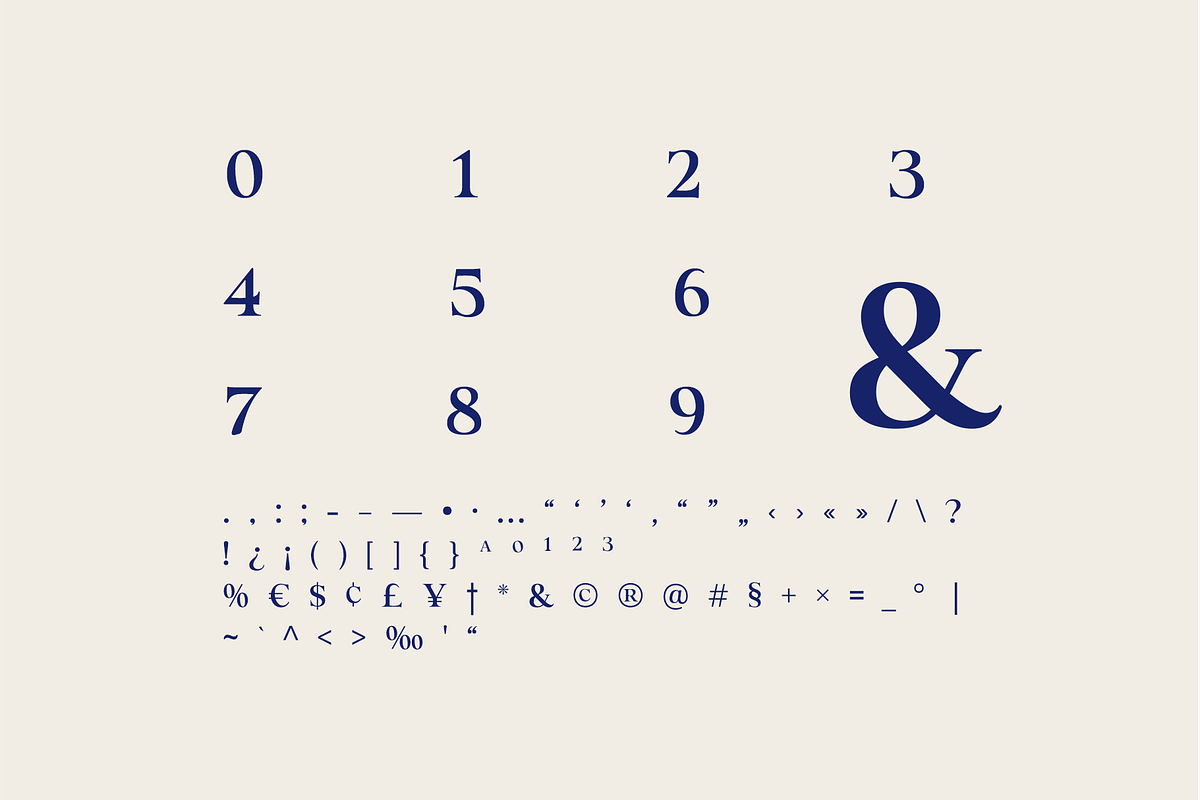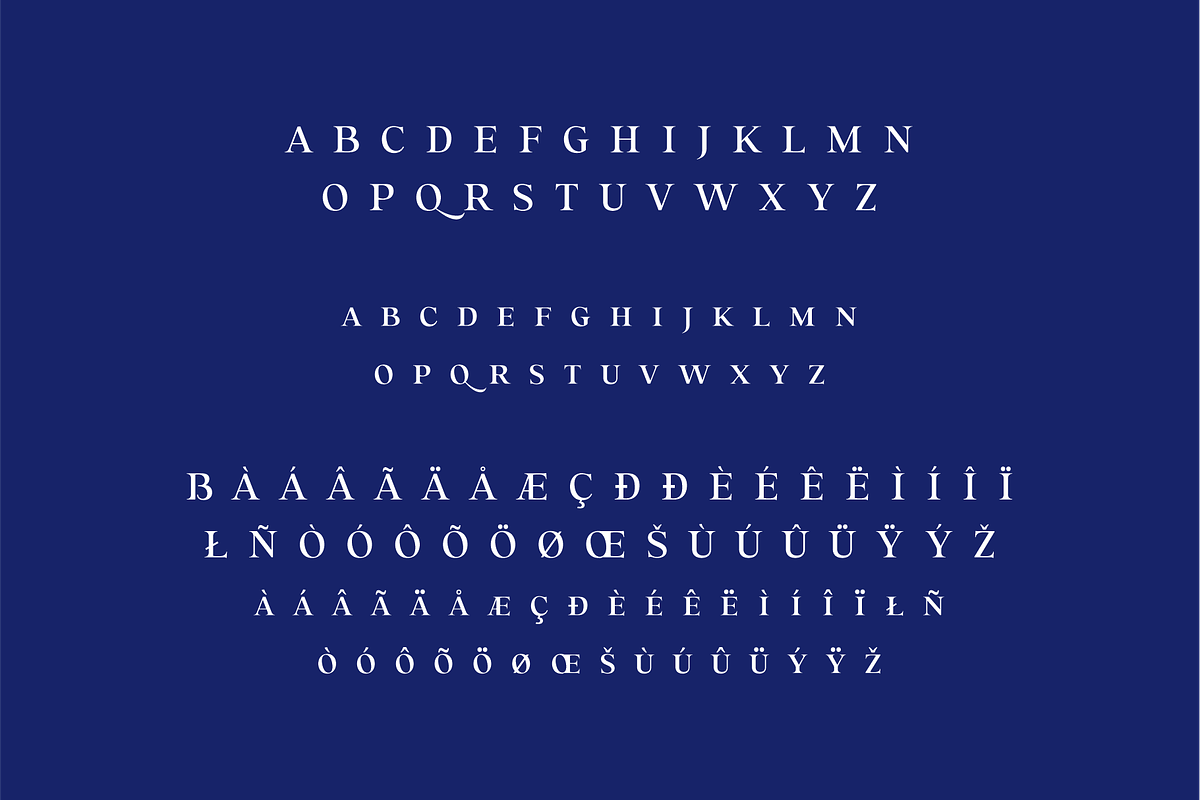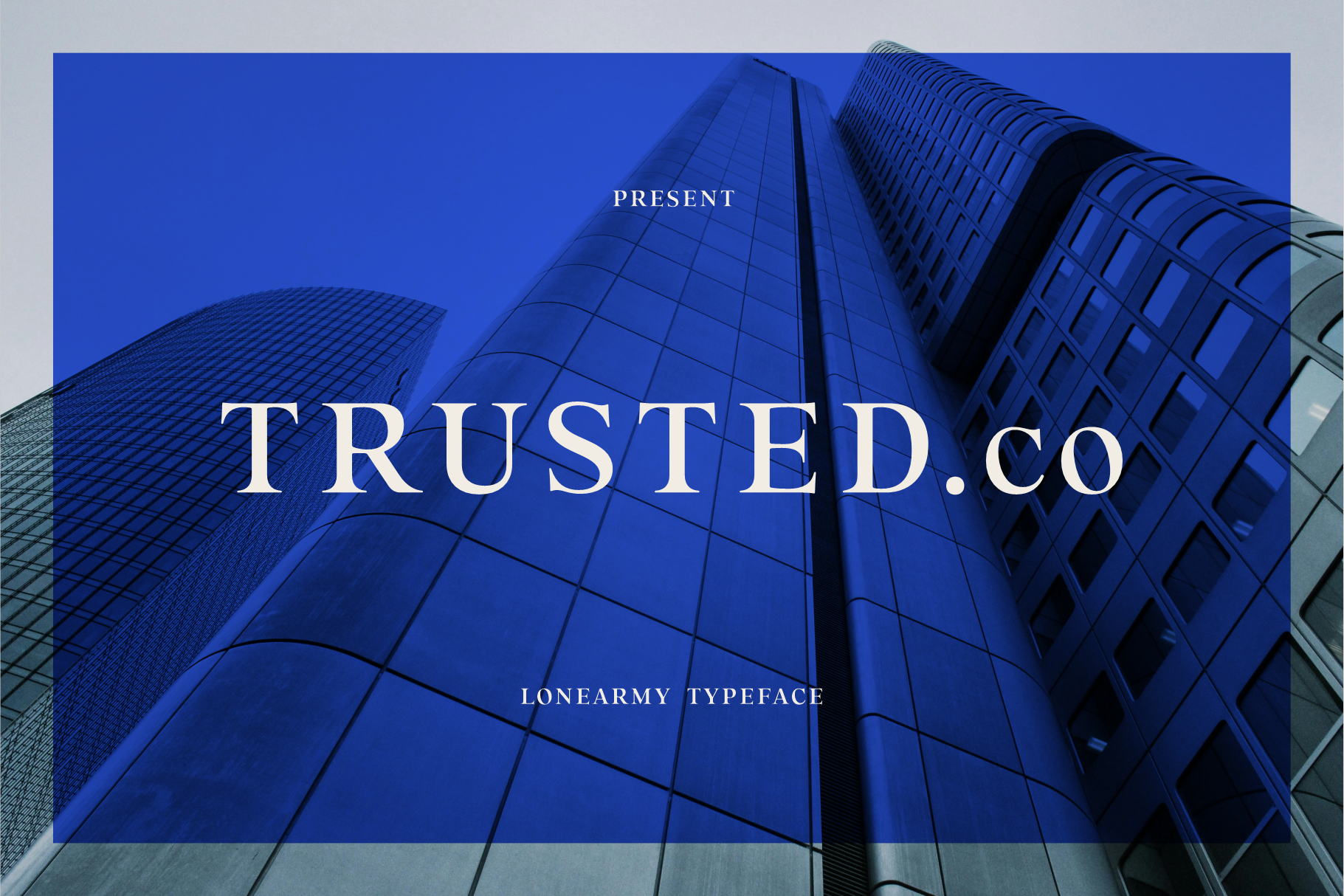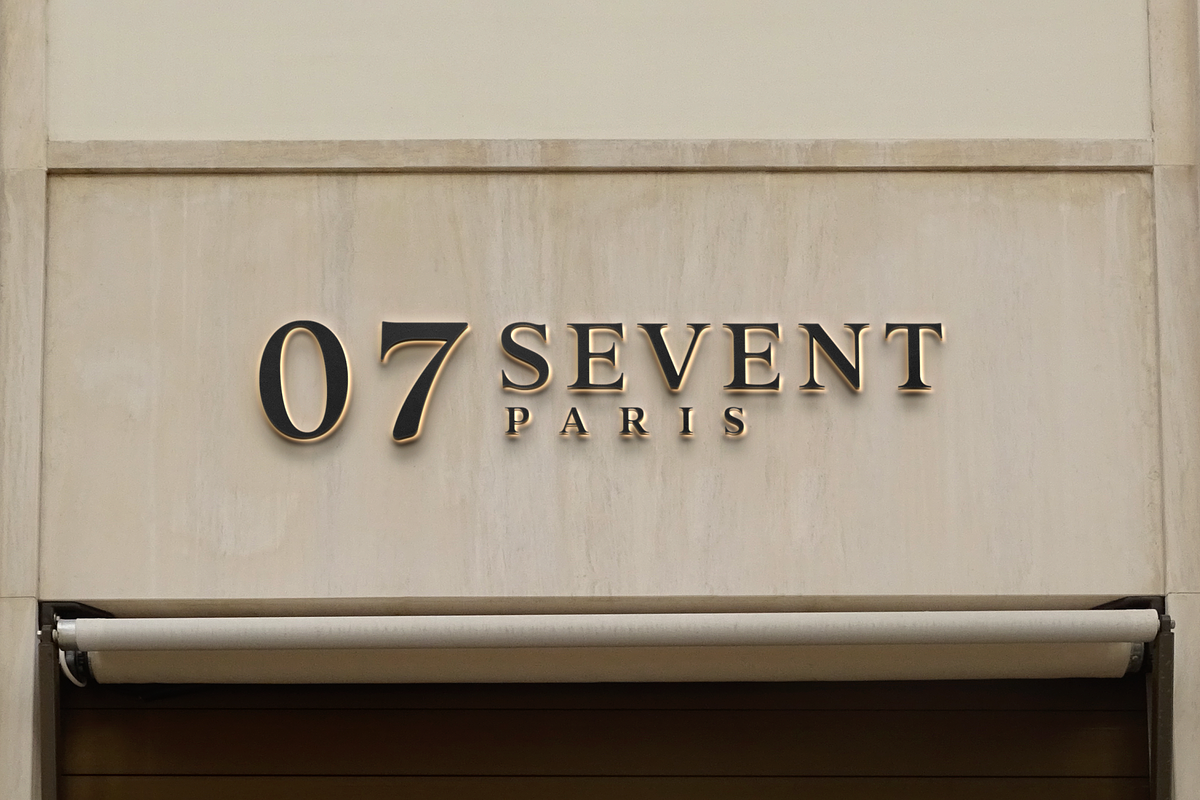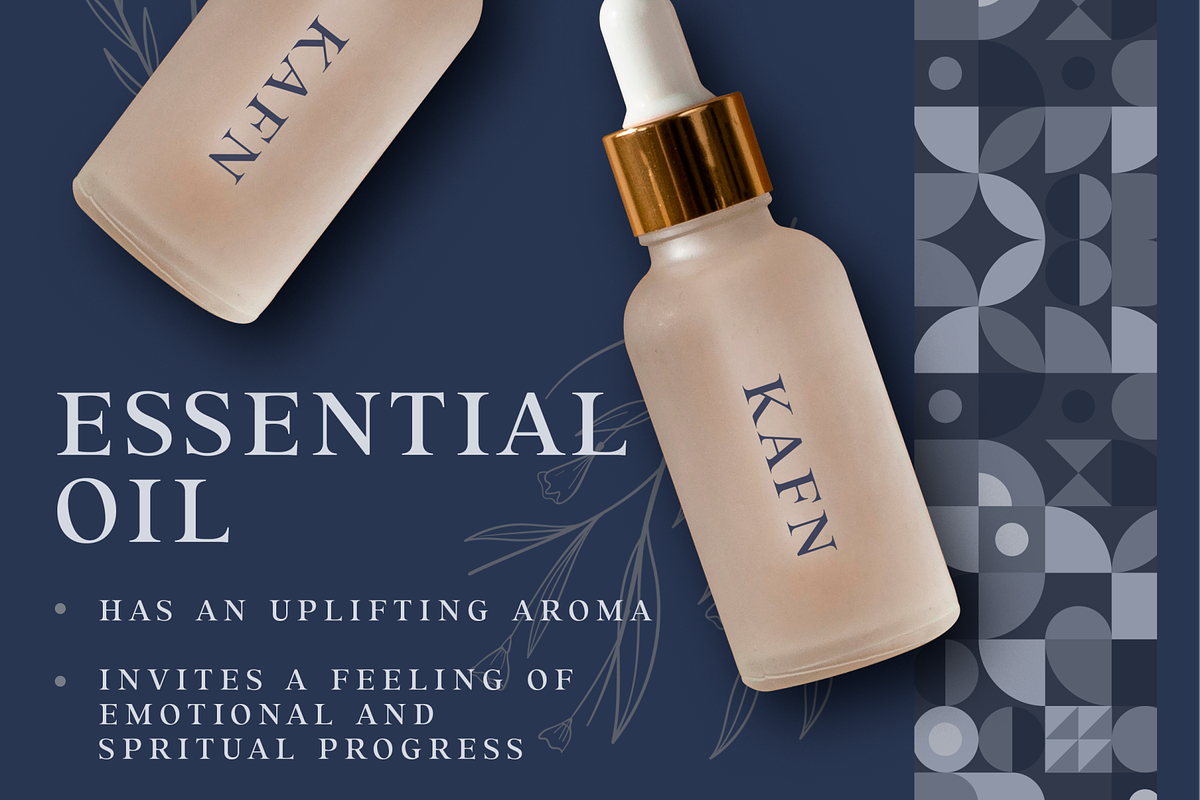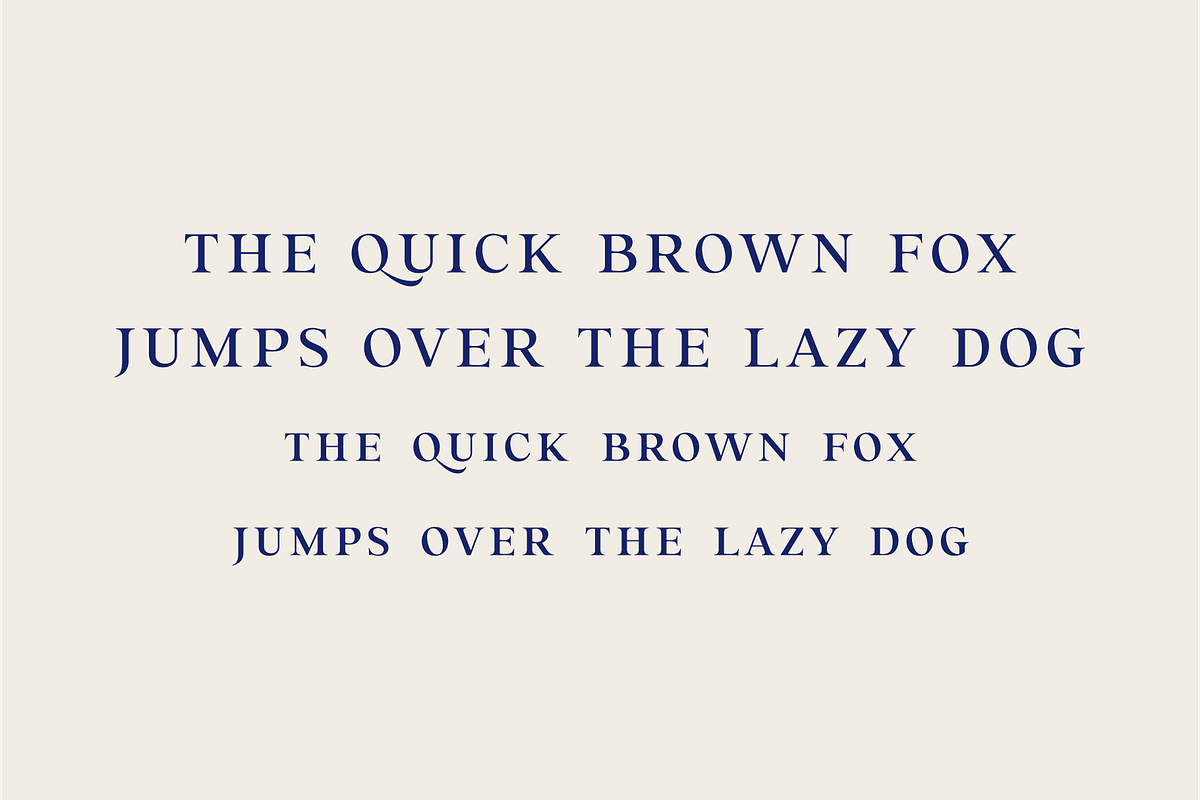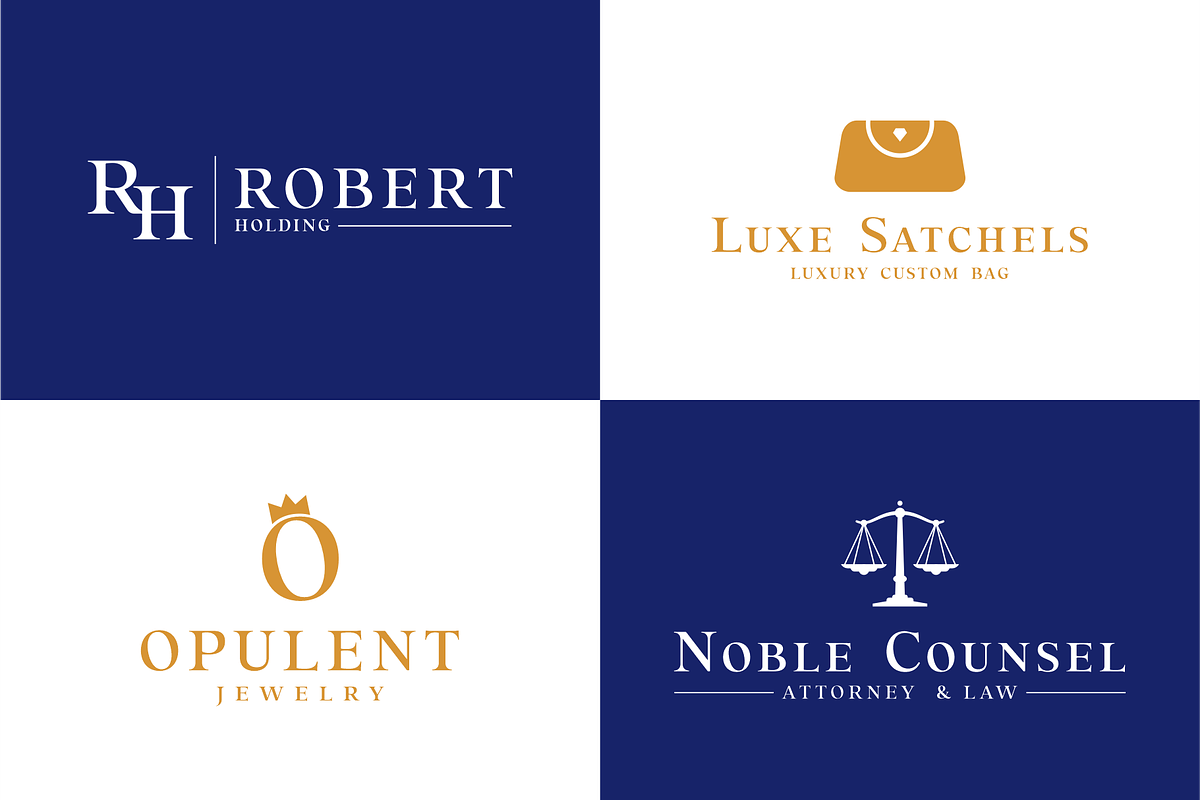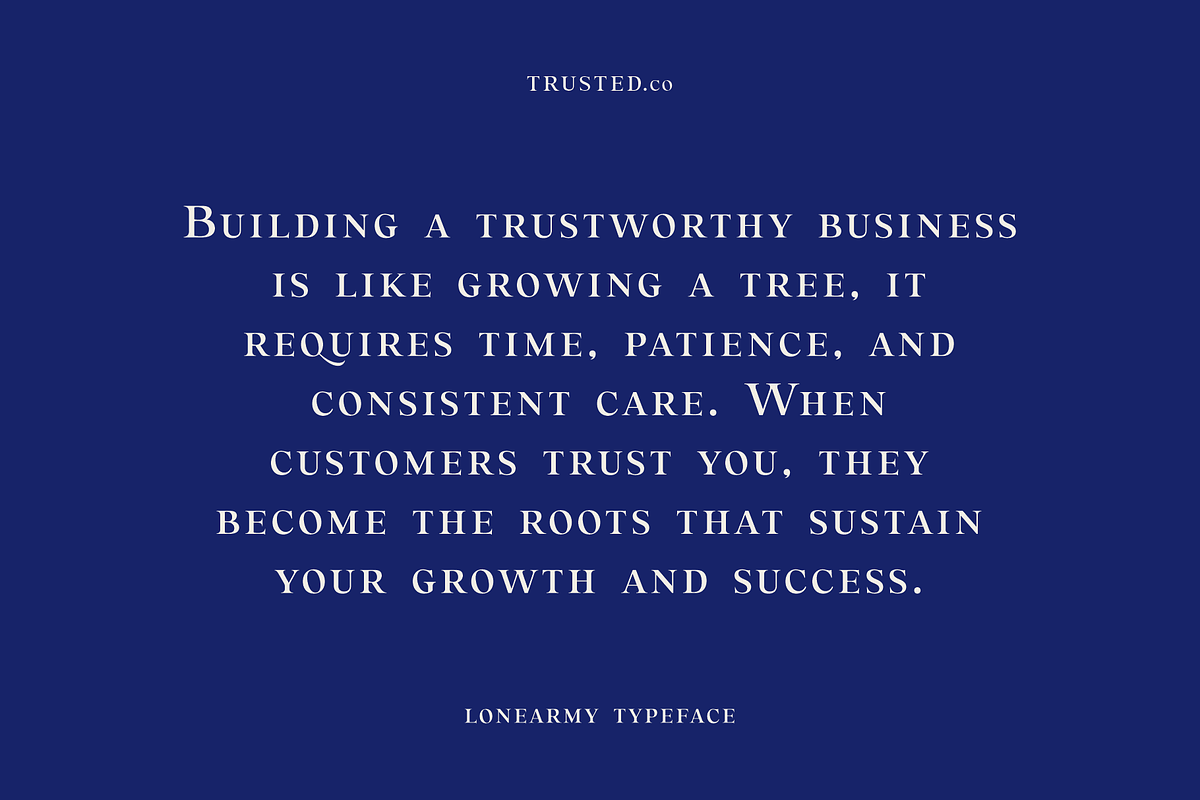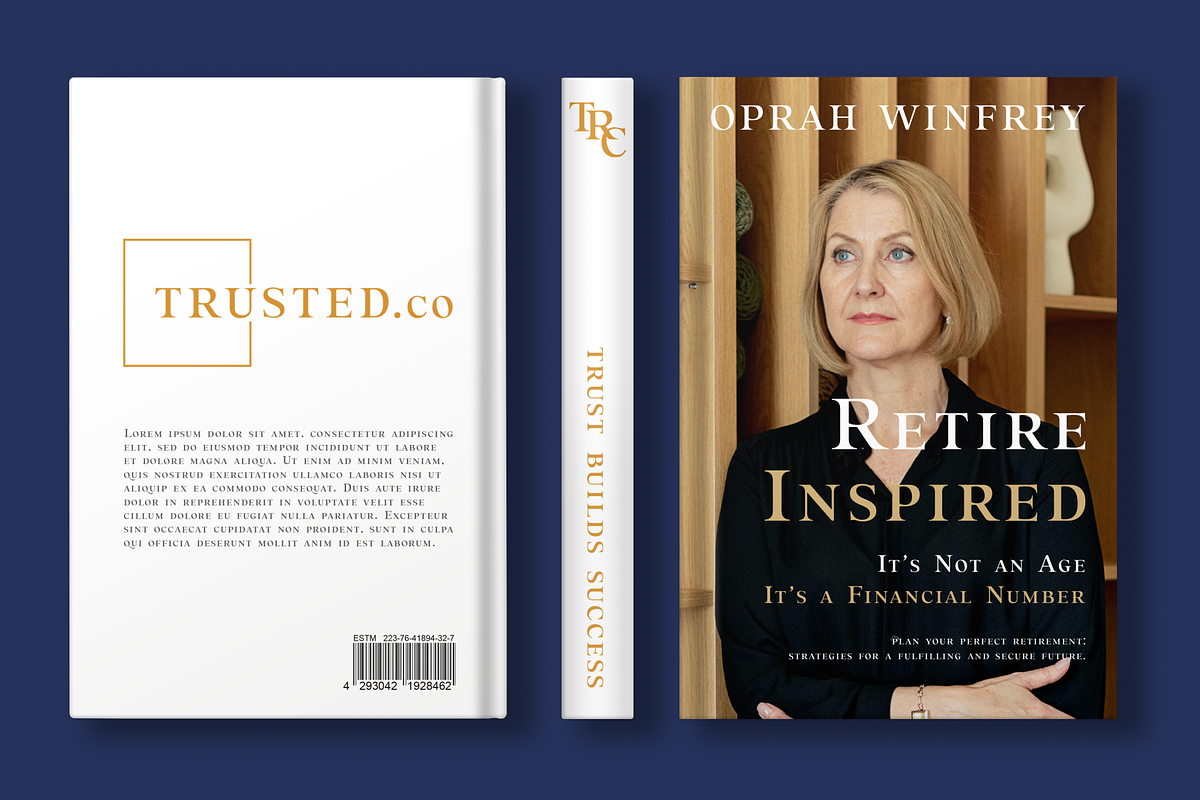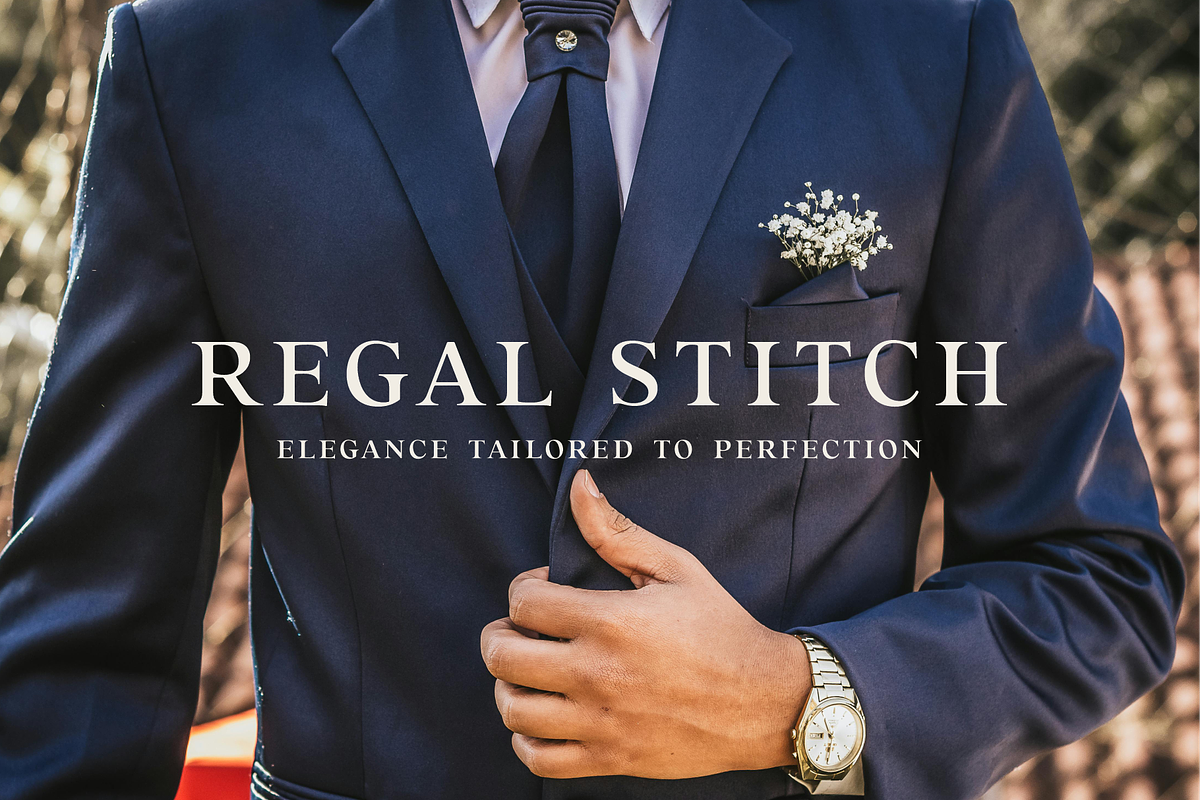
Trusted Serif Logo Font
Trusted is a serif font with a modern touch, embodying confidence, pride, and luxury. Its timeless elegance and contemporary flair make it perfect for high-end branding and design projects, ensuring a lasting impression.